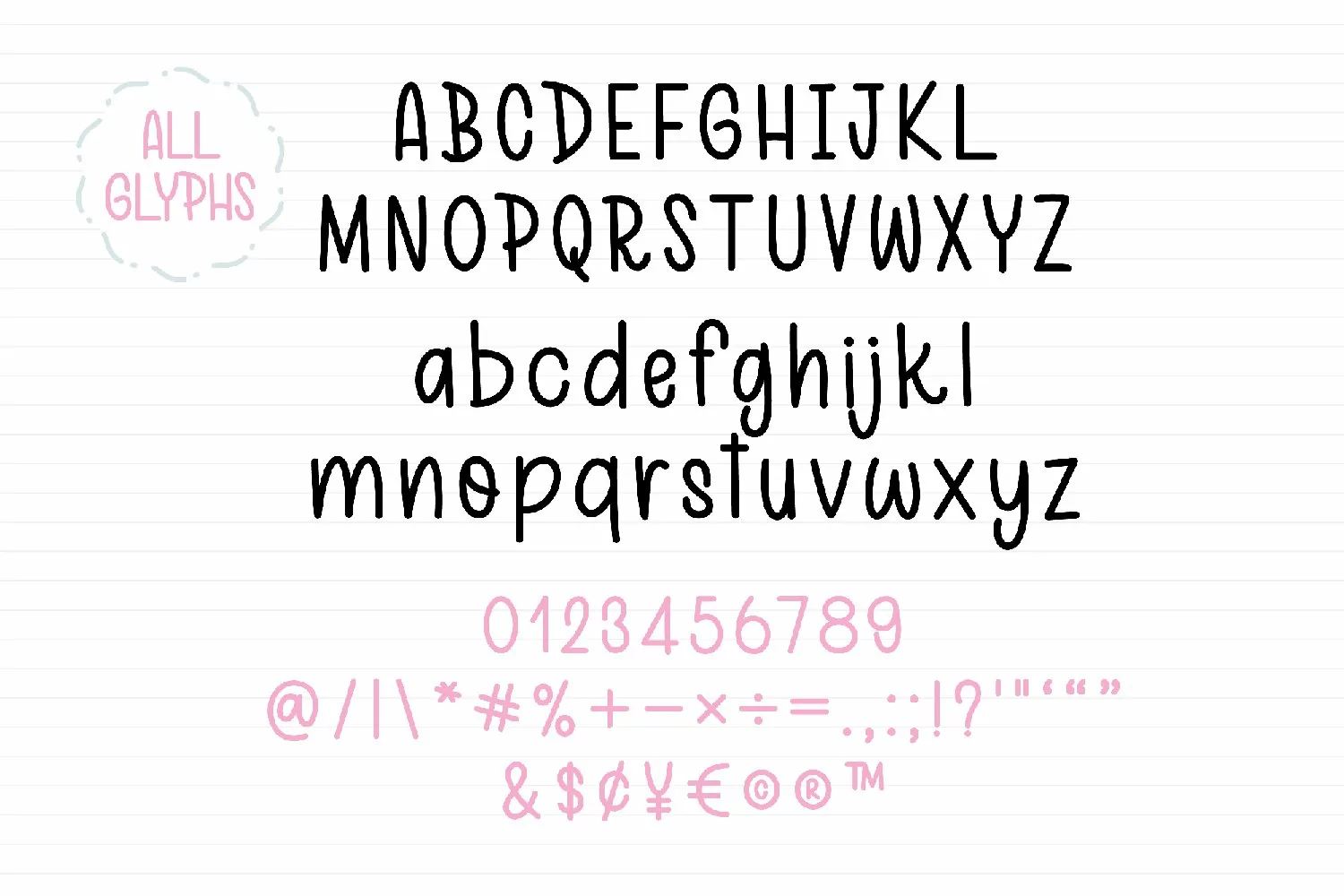
White Night is a sweet and friendly handwritten font. Its natural and unique style makes it incredibly fitting to a large pool of designs. The only limit is your imagination! White Nigth is PUA encoded which means you can access all the glyphs and alternates with ease!